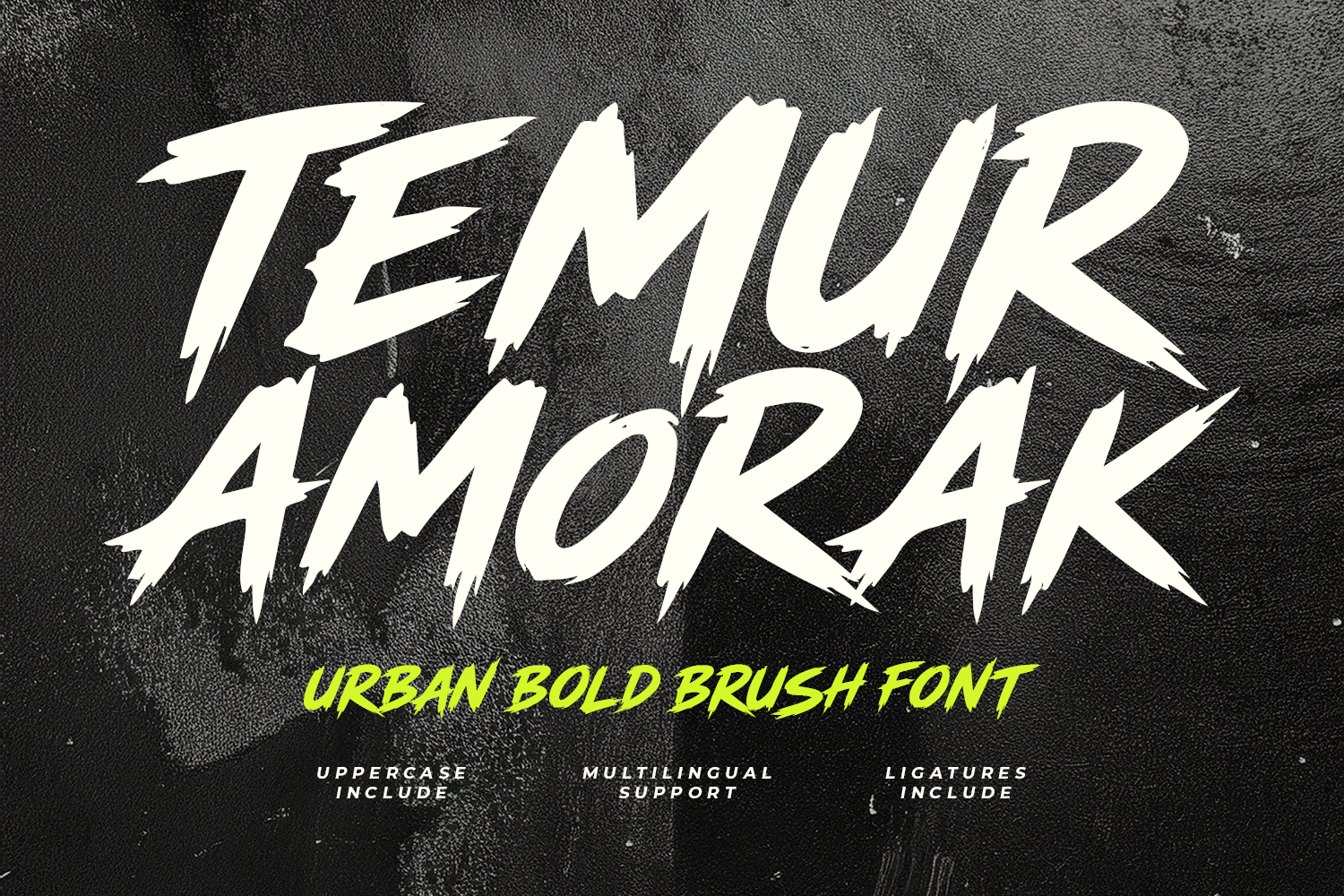
Temur Amorak Urban Bold Brush Font
Temur Amorak is a high-impact, hand-drawn brush font designed to deliver raw energy and aggressive motion to any visual project. Characterized by its sharp, jagged edges and fast-paced strokes, this typeface captures a gritty, rebellious aesthetic that demands attention. It features full uppercase characters, multilingual support, and unique ligatures that enhance the authentic texture of real ink. Perfect for concert, sports branding, gaming content, and cinematic titles, Temur Amorak provides a bold, unapologetic look that stands out against any background.
- Ligature for a natural handwriting flow